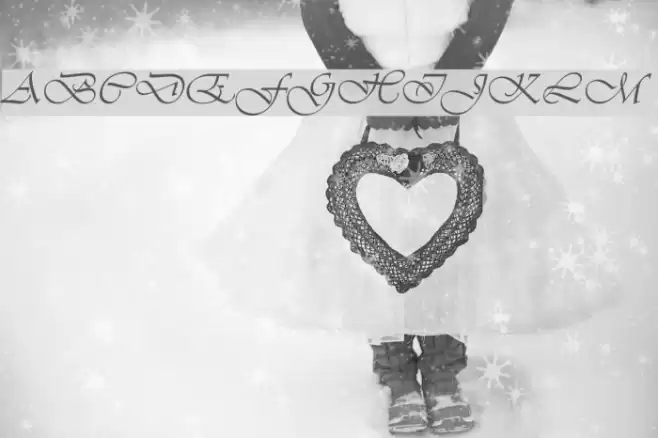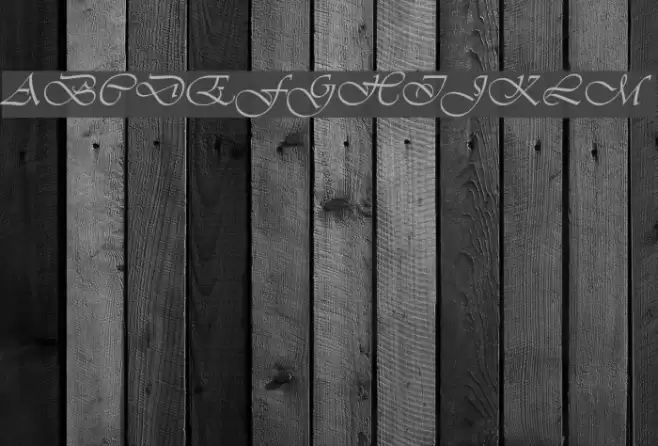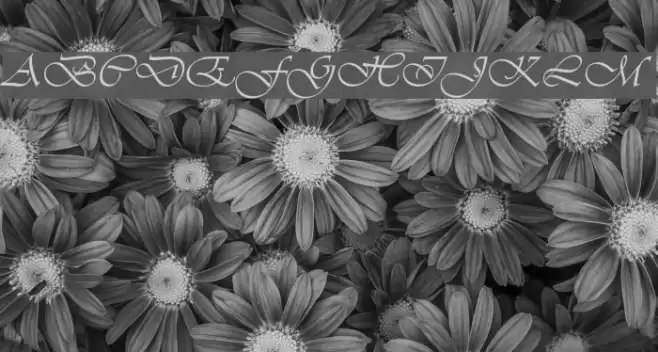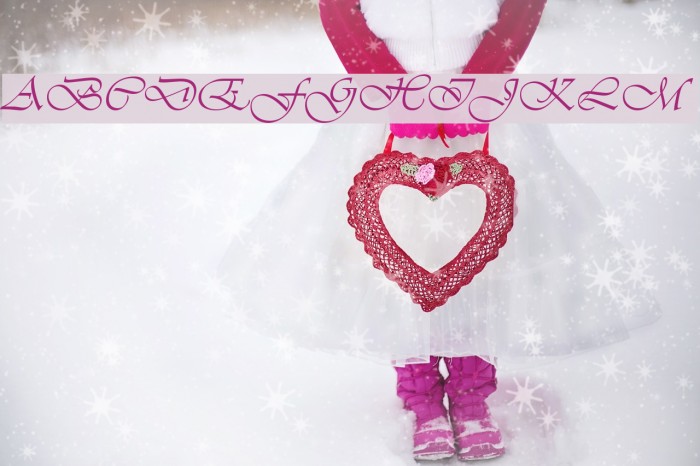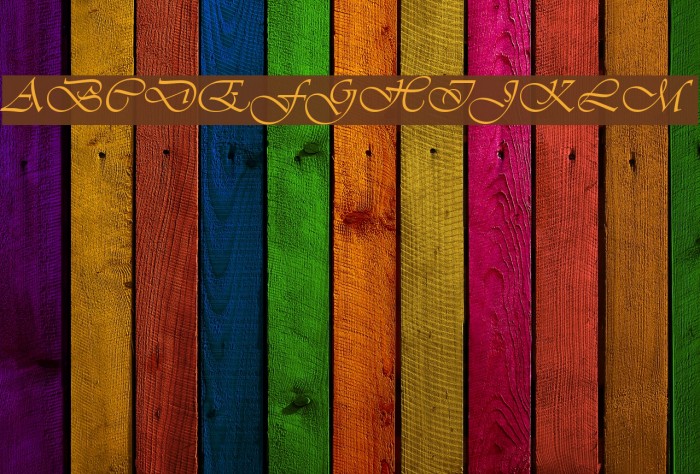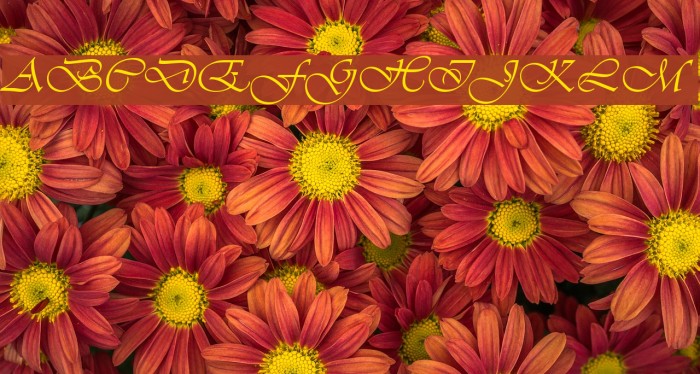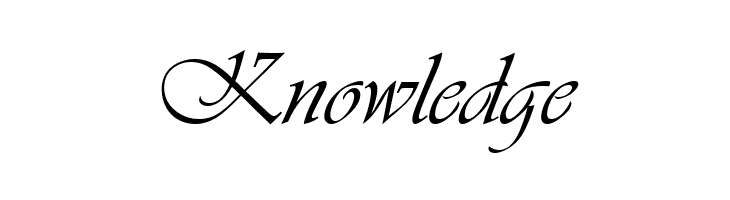
VivaldiD Font
VivaldiD Description
This elegant script font features a flowing, cursive style with intricate loops and flourishes. The uppercase letters are particularly ornate, with sweeping lines that give a sense of movement and grace. The lowercase letters maintain a consistent style, offering a harmonious blend with the uppercase. The numerals and special characters are designed to complement the overall aesthetic, ensuring a cohesive look across all text. This font exudes sophistication and is ideal for formal invitations, elegant branding, and decorative purposes. Its artistic flair makes it stand out, while still remaining legible.
An elegant script font with flowing, cursive lines and intricate flourishes from Script fonts.
- Proposed Projects: Ideal for wedding invitations, elegant branding, decorative signage, and formal event programs.
- Use Case: Headlines, Logos, Invitations